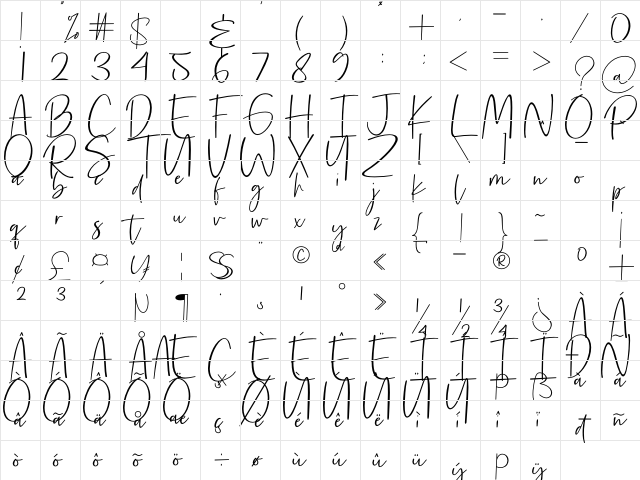
Prescious Soul Regular Free Font
Prescious Soul Regular
Design Context for Prescious Soul
Prescious Soul is a composed and adaptable typeface that performs quietly and consistently across a wide range of design contexts.
Pro Tip: Use Prescious Soul in both headline and body roles to test its range before committing to a single application.